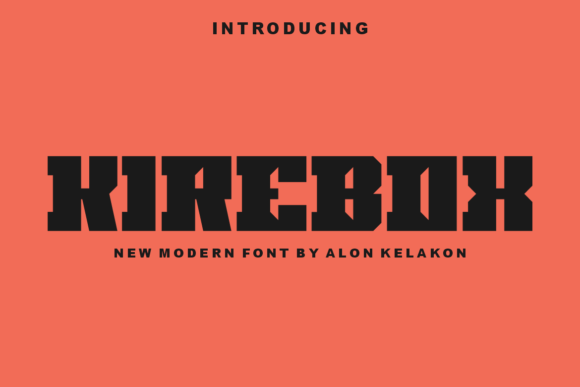
**Kirebox: The Epitome of Professionalism and Impact**
In the realm of business communication, every word carries a weight, every sentence shapes decisions, and every presentation influences perceptions. Kirebox, our meticulously crafted display font, empowers you to wield this power with unwavering precision and undeniable charisma.
Kirebox is the font that speaks volumes without uttering a single word. Its bold strokes exude confidence, while its meticulously curved edges convey sophistication. This captivating dance of strength and elegance makes Kirebox the perfect choice for crafting business letters that command attention, presentations that leave a lasting impression, and marketing materials that ignite inspiration.
Imagine your words adorned in the regalia of Kirebox. Picture your business documents transformed into works of art, your presentations elevated to the realm of masterpieces, and your marketing campaigns imbued with an irresistible allure.
Kirebox is not merely a font; it's a strategic tool that transforms ordinary communication into extraordinary experiences. It's the font that empowers you to:
* **Craft business letters that exude professionalism and authority:** Let Kirebox carry your words with the gravitas they deserve, ensuring your messages are received with the utmost respect and attention.
* **Design presentations that captivate and inspire:** Engage your audience with presentations that visually resonate, leaving a lasting impression that drives action and fuels success.
* **Create marketing materials that ignite desire and drive conversions:** Unleash the persuasive power of Kirebox in your marketing campaigns, captivating potential customers and turning prospects into loyal brand advocates.
Join the ranks of forward-thinking businesses who have discovered the power of Kirebox. Together, let's redefine business communication and leave an indelible mark on the world, one letter at a time.